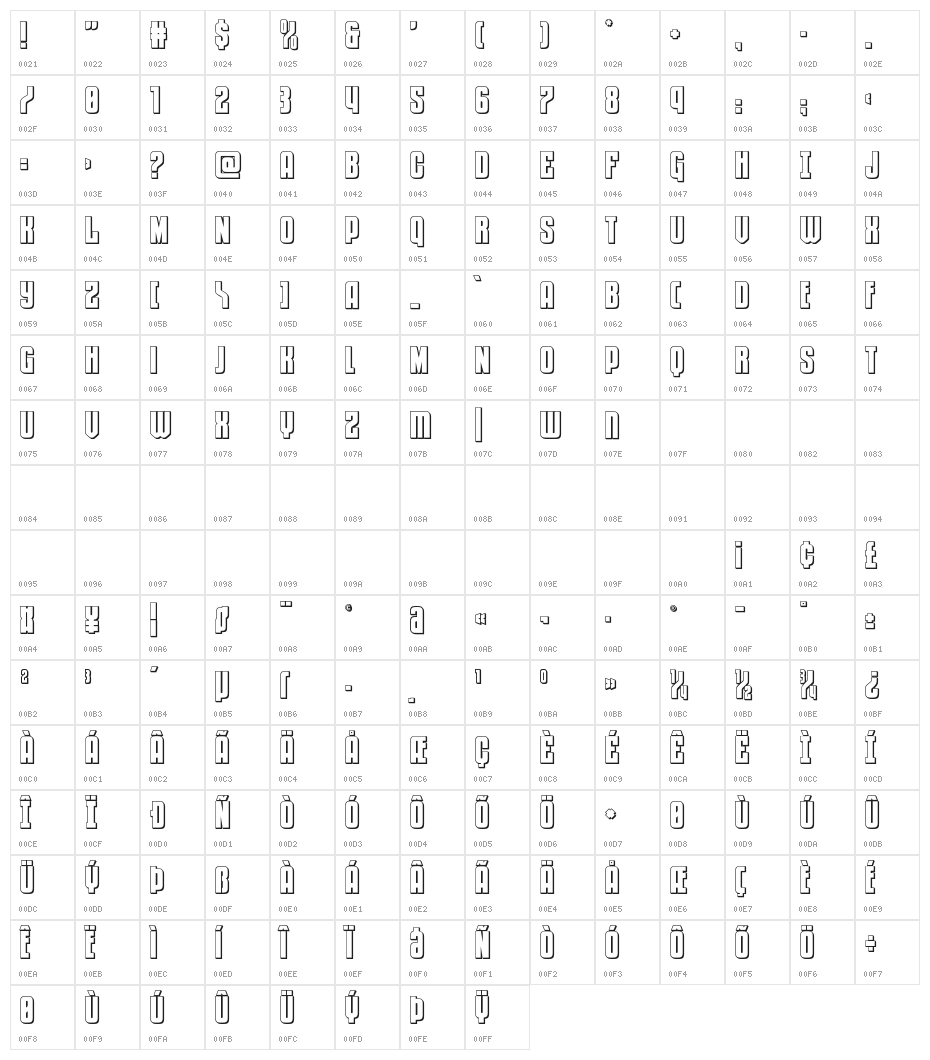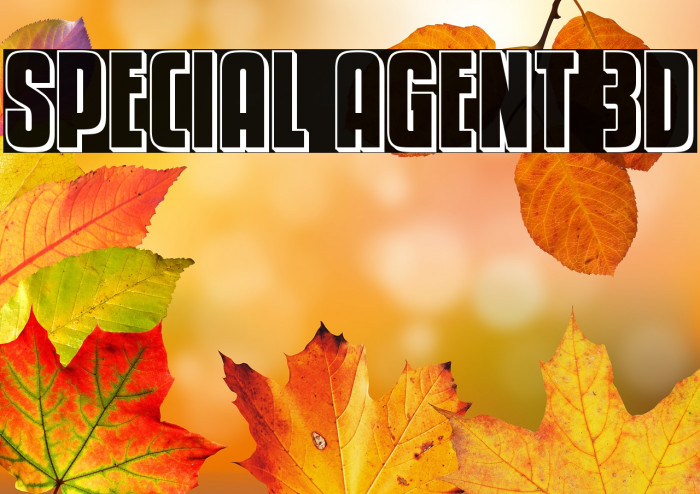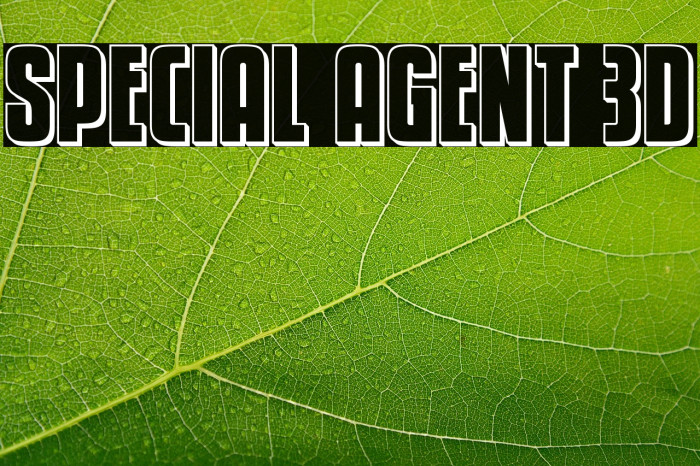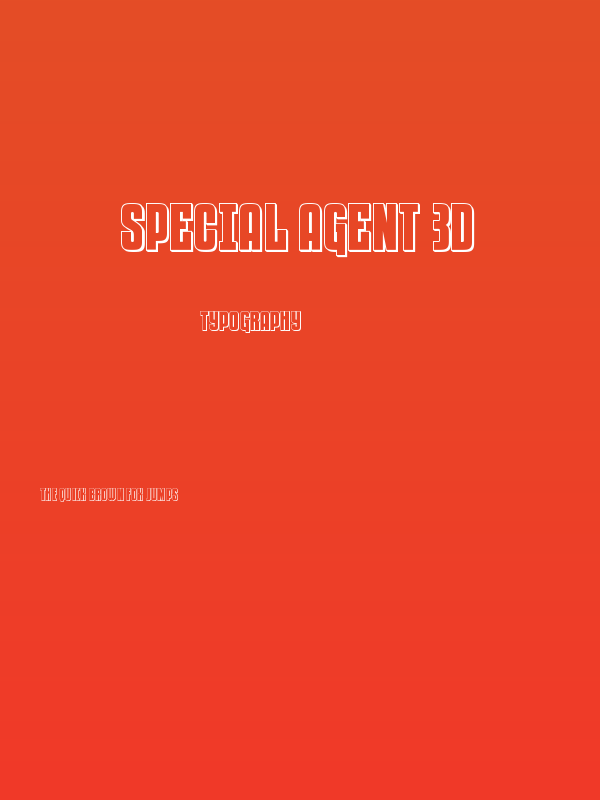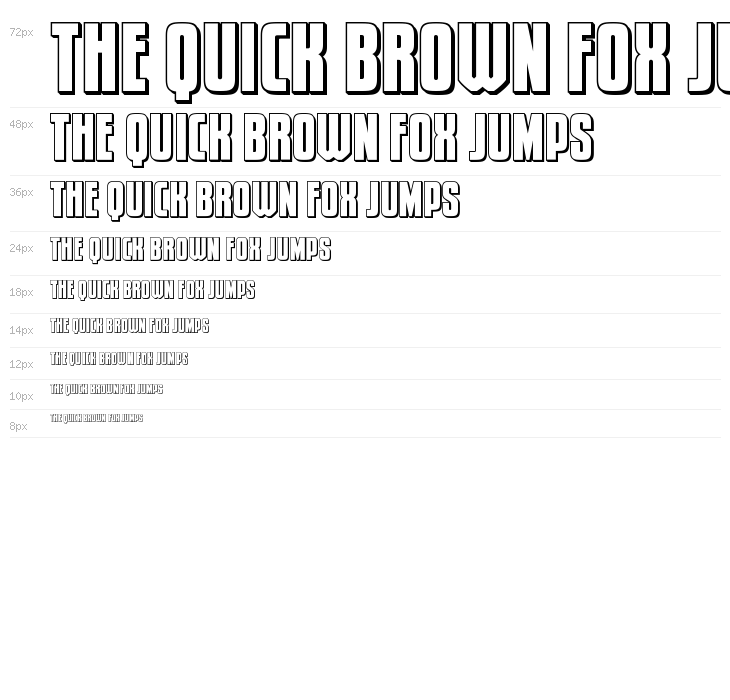
Special Agent 3D Font
Special Agent 3D Description
This font features a bold, three-dimensional design with a strong, impactful presence. The characters are outlined, giving them a distinct shadow effect that enhances their depth and visibility. The uppercase letters are uniform in height, while the numbers and special characters maintain the same bold style, ensuring consistency across all elements. The font's geometric structure and clean lines make it suitable for attention-grabbing designs. Its boldness is complemented by a slight spacing between characters, which prevents overcrowding and maintains readability. The overall style is modern and dynamic, making it ideal for projects that require a strong visual impact.
Proposed ProjectsIdeal for posters, headlines, logos, and any design needing a strong visual impact.